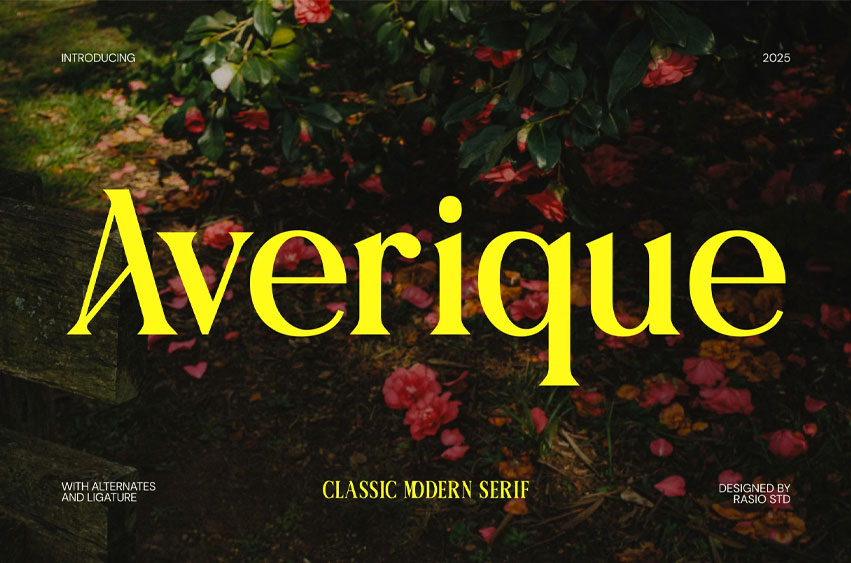
Averique Font
Averique Font is a refined modern serif font with elegant contrast, graceful ligatures, and delicate classic-inspired details. The typeface includes uppercase, lowercase, numerals, punctuation, and stylistic alternates, crafted for sophisticated editorial and luxury-oriented design. Its high-contrast strokes and expressive serif structure bring timeless beauty with a contemporary fashion-forward presence. Font files only are included; preview mockups are for presentation purposes and not included.
Relevance and Use Cases is perfect for luxury branding, editorial layouts, fashion campaigns, wedding stationery, perfume packaging, beauty product labels, magazine headlines, boutique logos, invitation suites, and premium visual identities requiring timeless elegant typography.
• Ligatures & Alternate